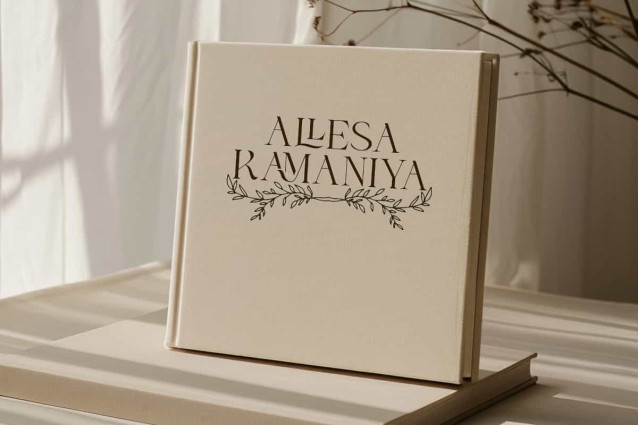
Fabiana Elison Font
Fabiana Elison Font by VinType 8,232 downloads
Fabiana Elison Font
Fabiana Elison Font is an elegant display serif font with unique details that give it a modern and luxurious touch. This font will be perfect for any projects, can be used for signage, advertising, brand image, custom design, invitation, label, layout design, quotes, stationery, template design, website, and more!
Fabiana Elison Font includes full set of Uppercase and Lowercase Basic Characters, Numerals, Punctuation, and Symbol. This font contain Ligature character that exclusive and classy impression. Making it a perfect choice for a variety of fields, such as fashion, accessories and jewelry, beauty product, event or wedding organizer, florist, furniture, real estate, spa salon, etc.